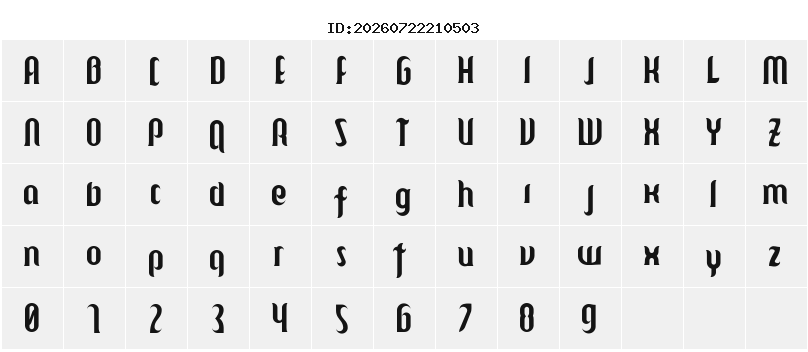
• Font Name: Mulago
• Designer: Alberto Villanueva
About Mulago.ttf
Mulago.ttf is a modern, elegant sans-serif font designed for ultimate readability and visual harmony. Perfect for branding, headlines, web design, and print materials.